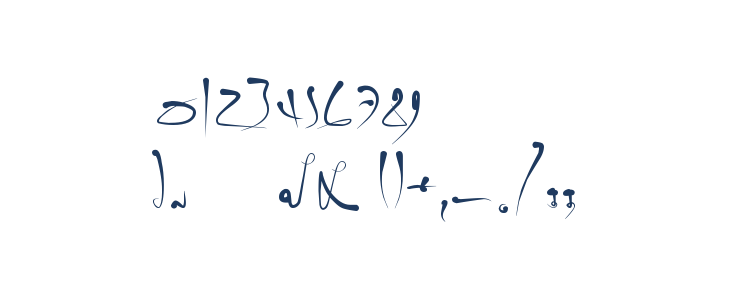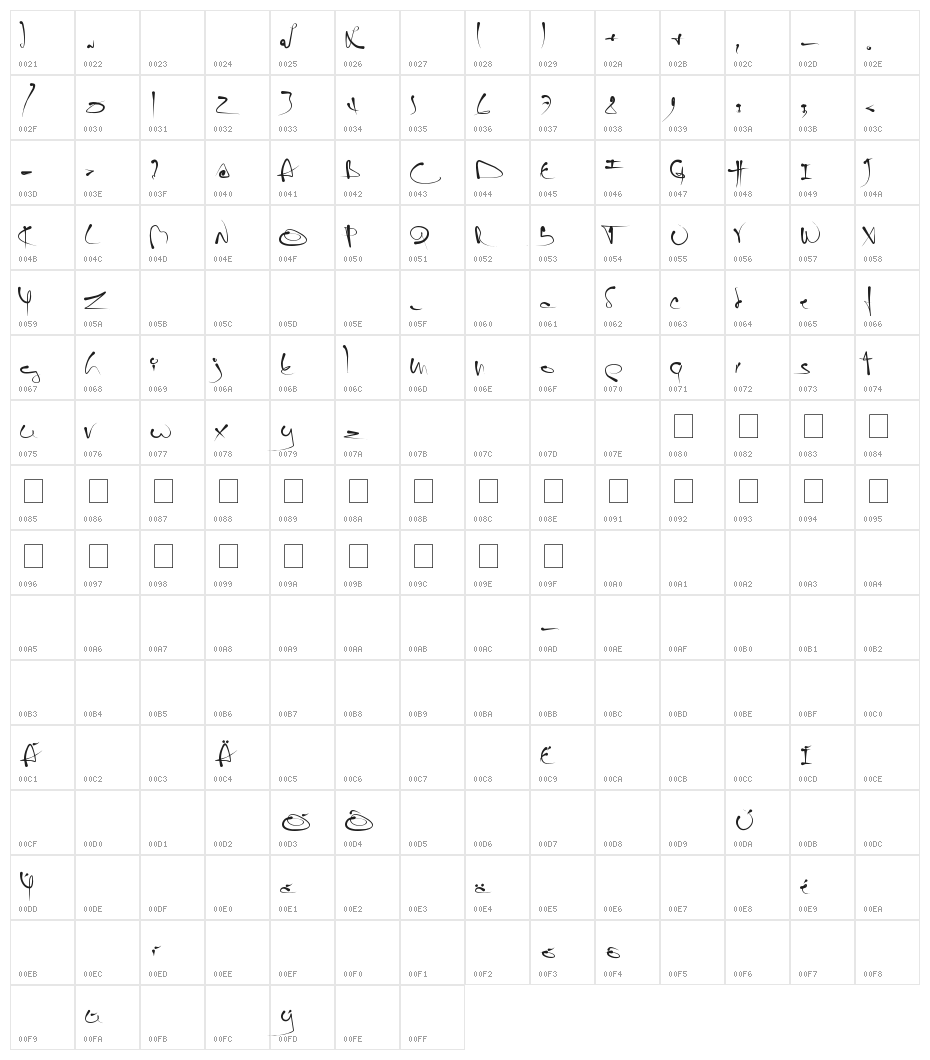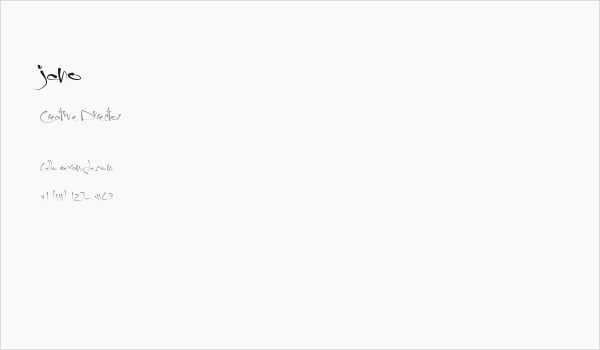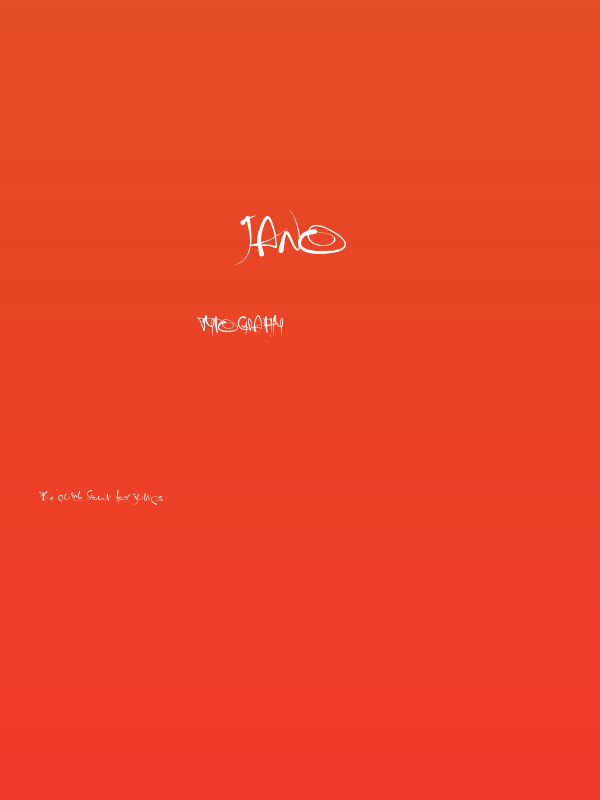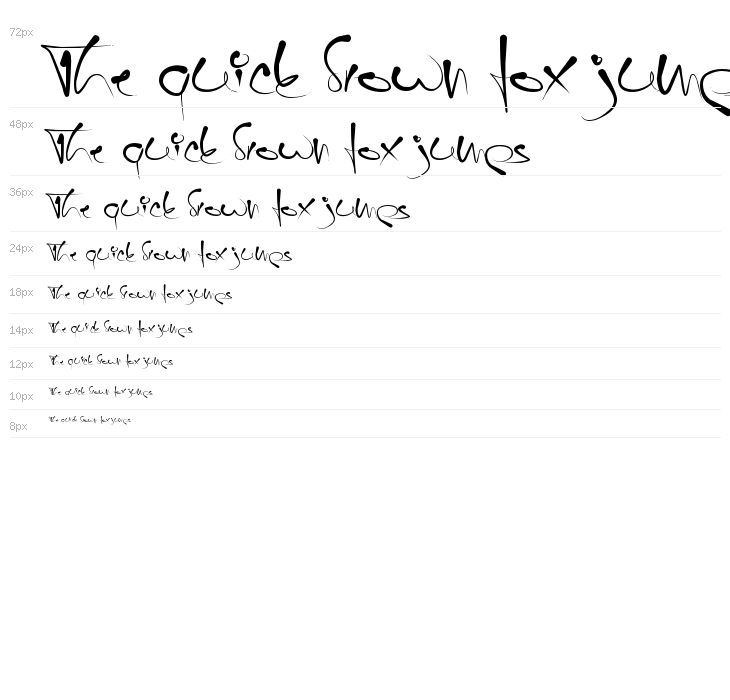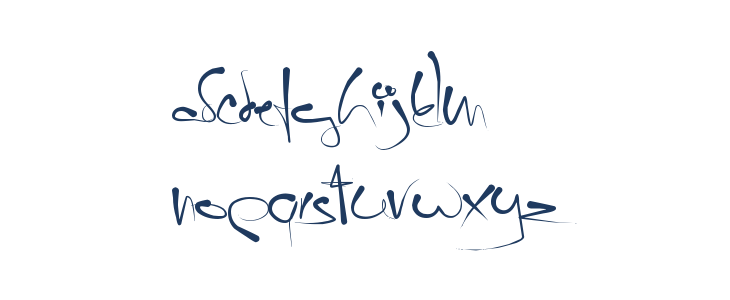
jano Font
jano Description
This font exhibits a highly expressive and artistic style, characterized by its fluid, cursive strokes and dynamic letterforms. The uppercase letters are bold and sweeping, with exaggerated curves and loops that give a sense of motion and energy. The lowercase letters maintain this fluidity, with a more compact and interconnected design that enhances readability while retaining the artistic flair. Numbers and special characters follow the same stylistic approach, ensuring consistency throughout. The overall appearance is both modern and avant-garde, making it suitable for creative and unconventional projects.
| Overall Style | Modern, Artistic |
| Proposed Projects | Ideal for art projects, creative branding, posters, and invitations where a unique and artistic touch is desired. |